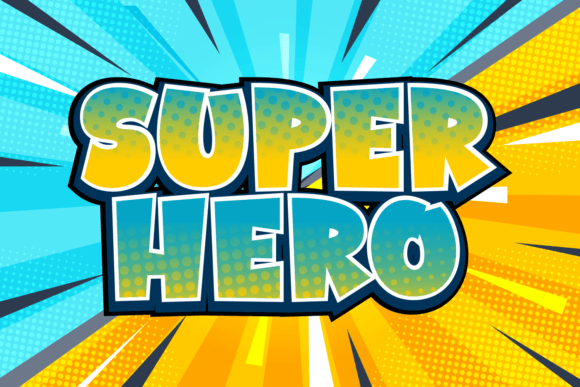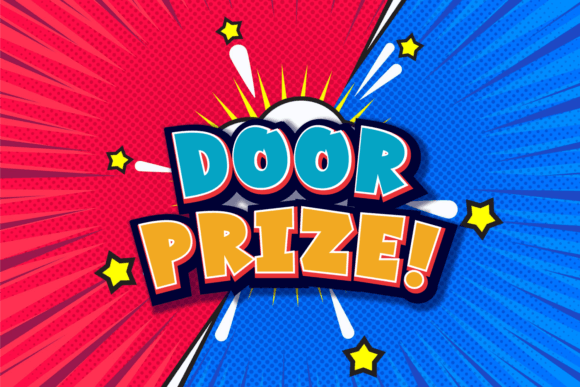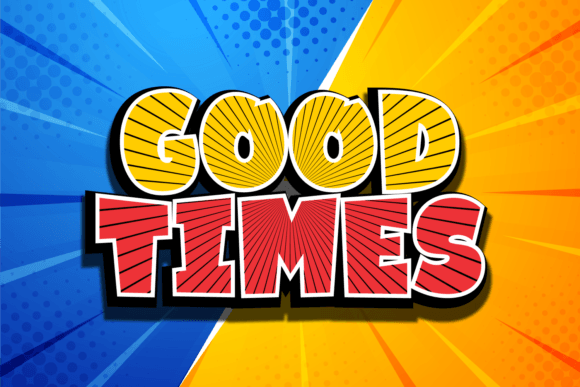
Introduction to Magic Book Font
Magic Book is a chubby and joyful display font.
Stand out from the crowd with this fun and unique cartoon-style font It looks fantastic on headlines, posters, book covers, stickers, apps, games, kids’ t-shirts, and more.
Key Features of Magic Book Font